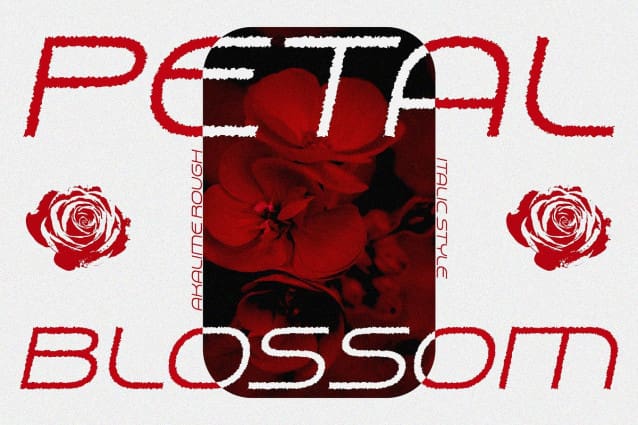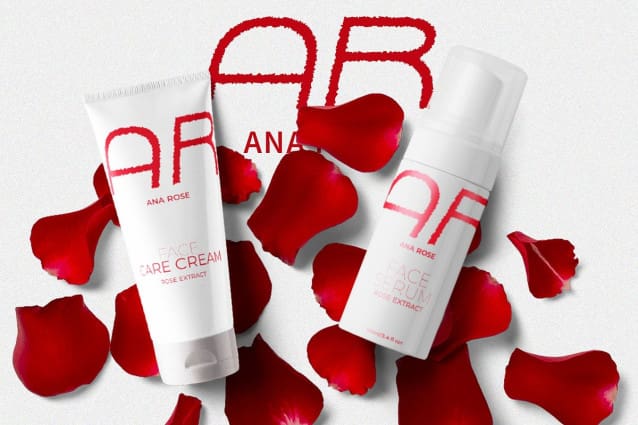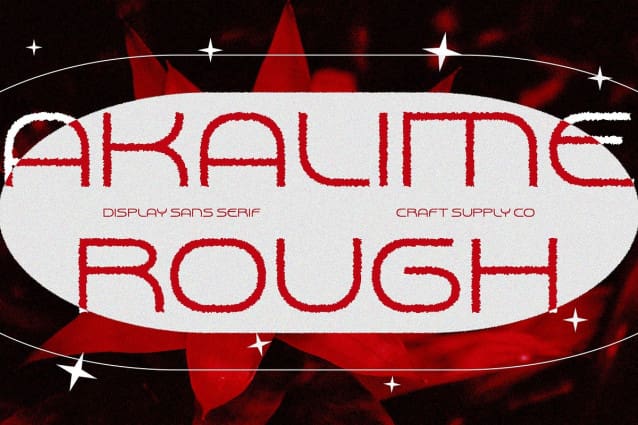
Akalime Rough Font
Akalime Rough Font: Modern Geometric Display Font. Monoline Geometric Design Akalime Rough boasts a sleek monoline geometric sans serif, characterized by clean lines and precise shapes. Its minimalist aesthetic brings a contemporary touch to any design project.
Rough Effect With its rough effect, This font adds texture and depth to its otherwise sleek appearance. The subtle roughness enhances the font’s visual interest, making it stand out in any display application.
Perfect for Display Designed specifically for display purposes, This font excels in making a bold statement. Whether used in headlines, banners, or logos, its striking presence commands attention and leaves a lasting impression.
Versatile Application Despite its bold display nature, This font is surprisingly versatile. It adapts well to various design contexts, from branding and advertising to web design and packaging, offering flexibility and visual appeal.
Contemporary Elegance with a Textured Twist This font combines modern geometric simplicity with a rugged texture, making it a versatile and eye-catching choice for display typography. Its clean lines and rough effect strike a perfect balance between sophistication and visual interest, ensuring impactful results in any design project.